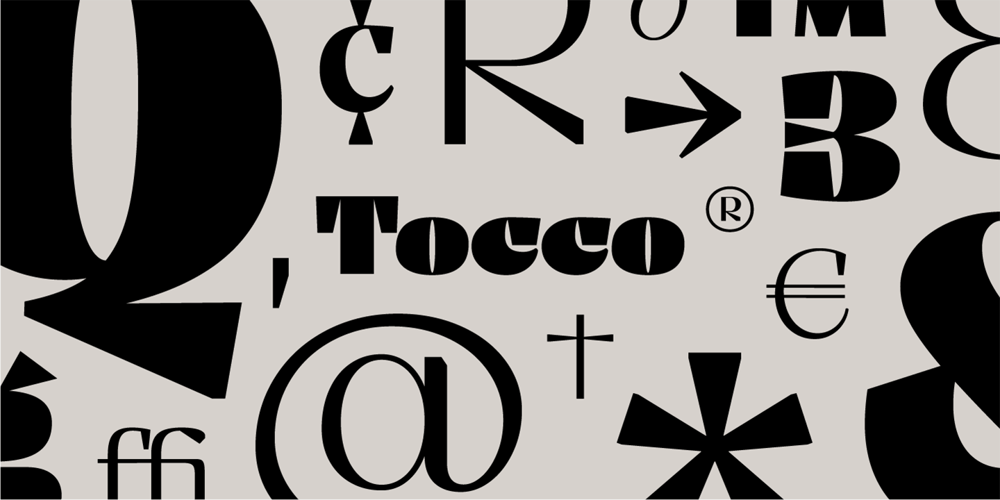
Tocco Font Family was designed by Thiago Bellotti and published by Papanapa. Tocco contains 9 styles and family package options. Meet the first typographic family designed by Papanapa. Inspired by leftover chunks of wood found in a workshop we conducted with one of our clients, this type carries an elegant and distinctive personality due to its unexpected angles. Tocco is available in 8 weights, from Thin to Black, and it was designed to be used primarily on headlines, titles or small texts. It also supports basic Latin. We hope you enjoy it!